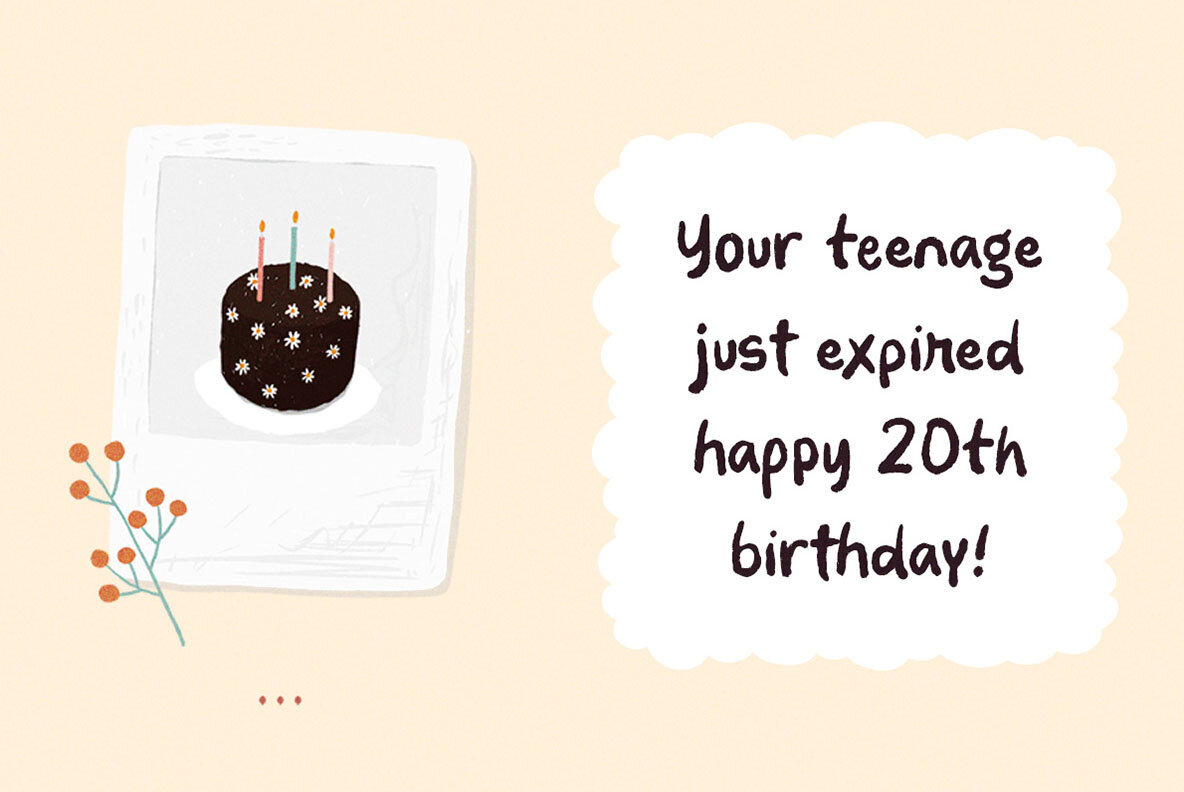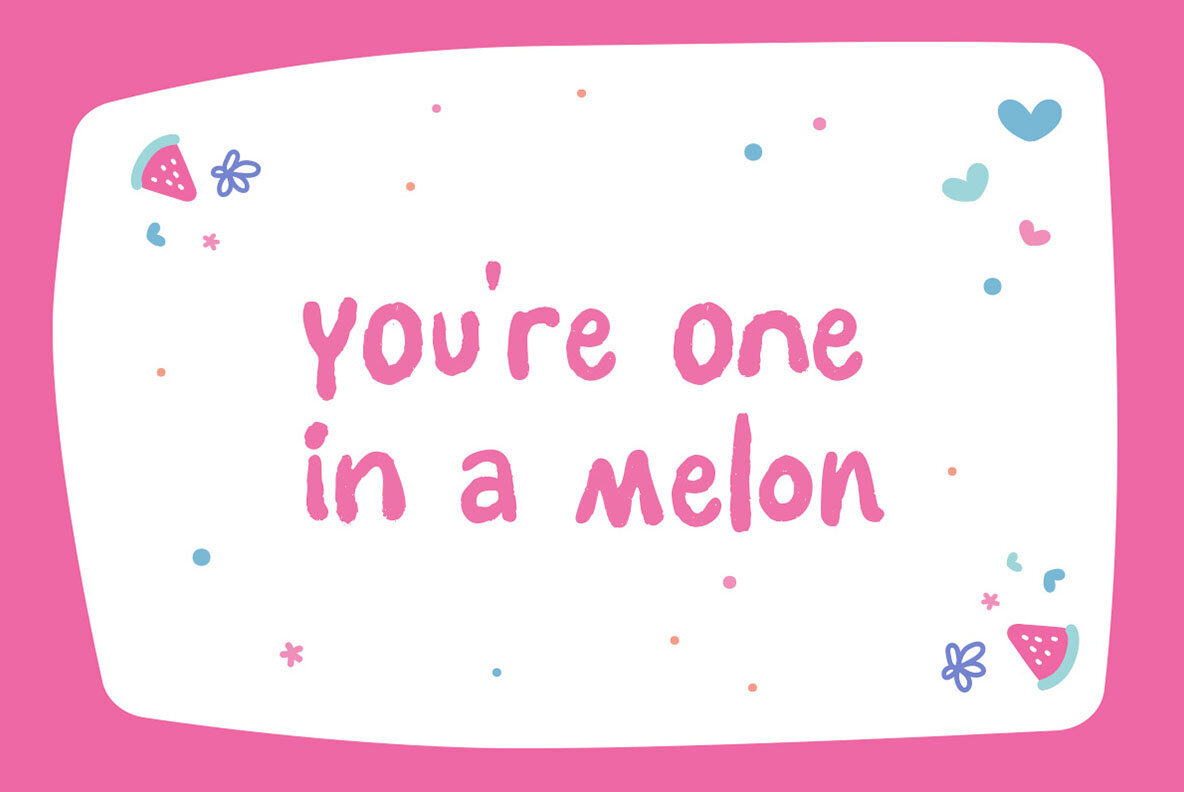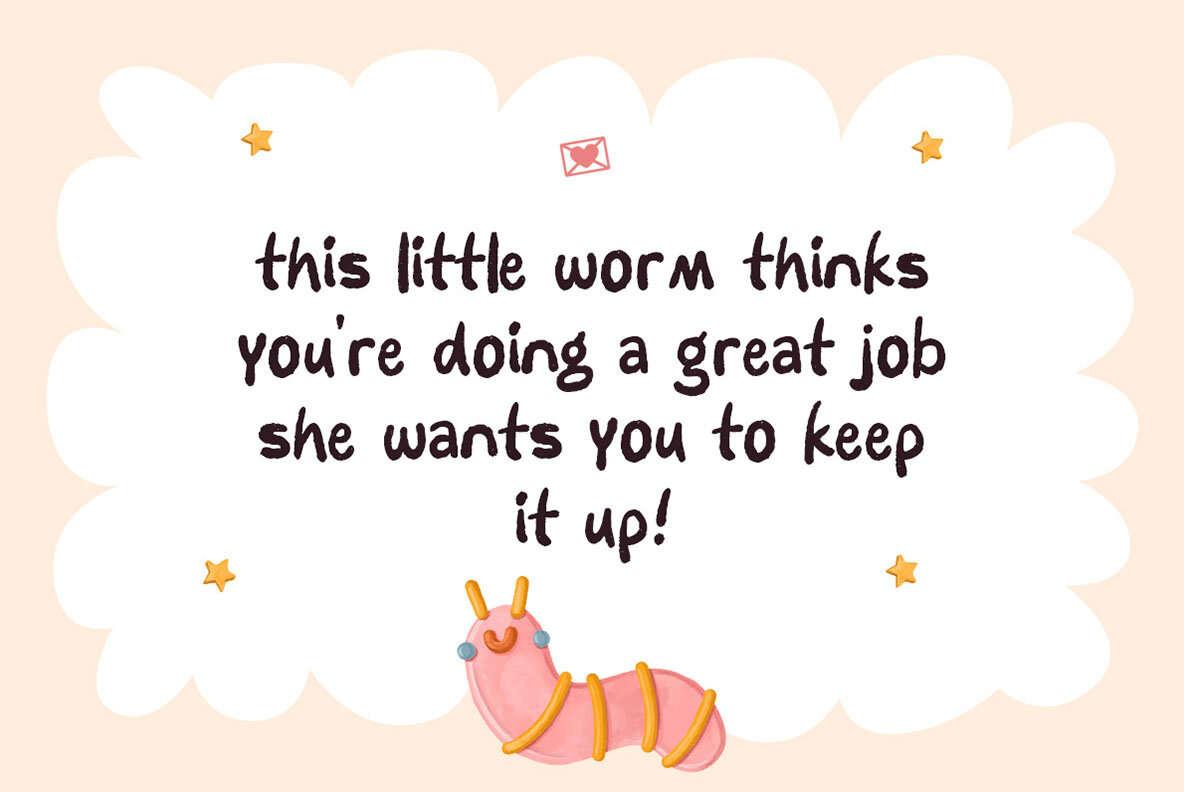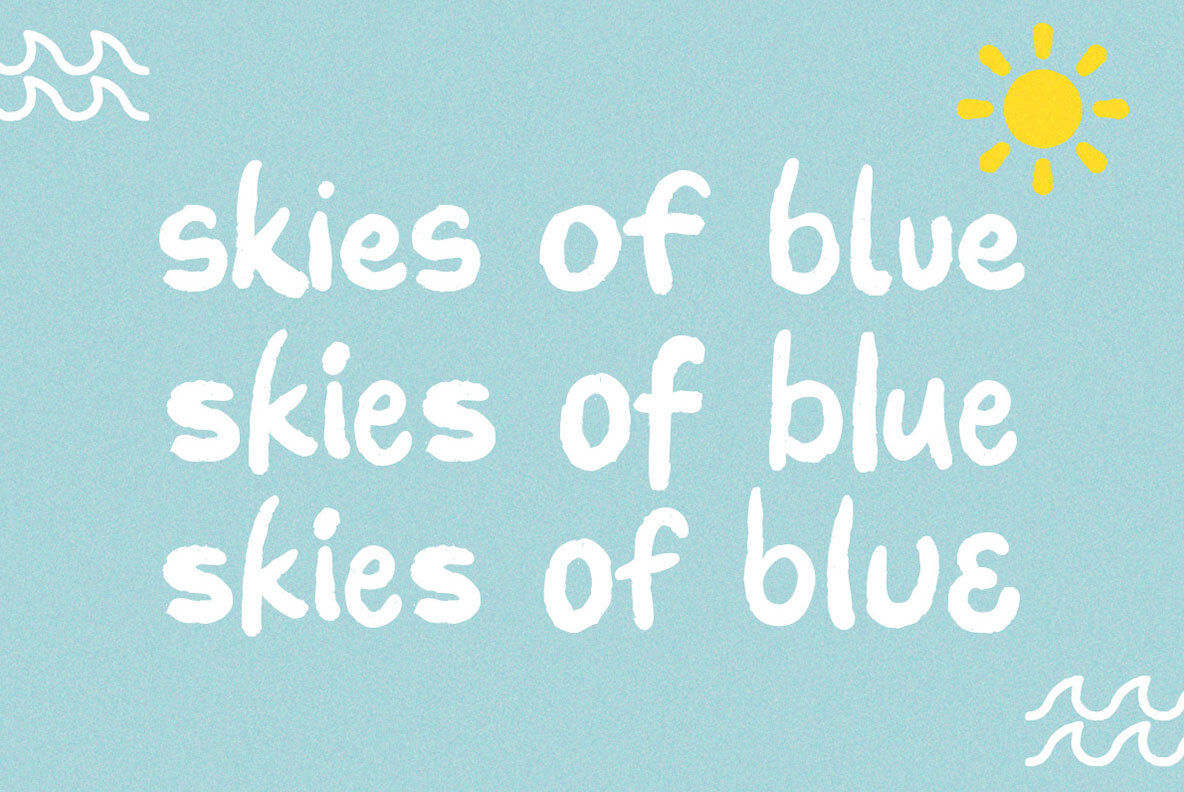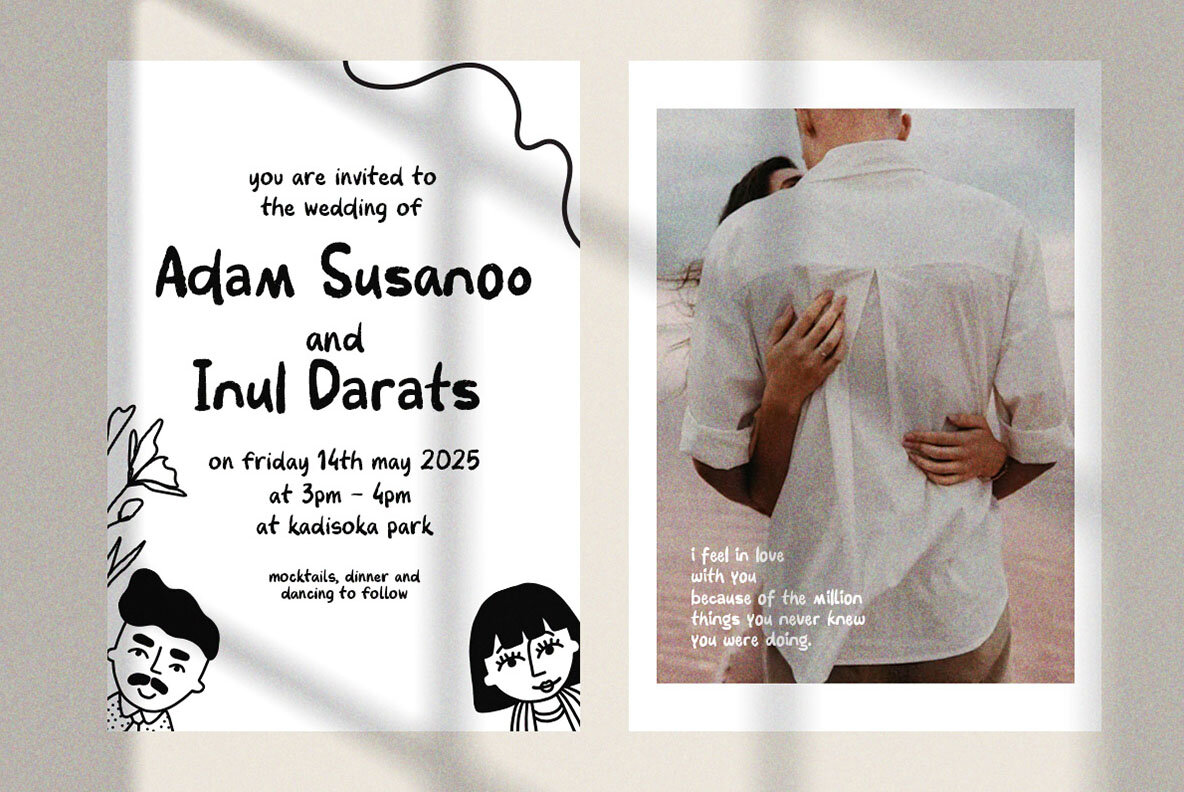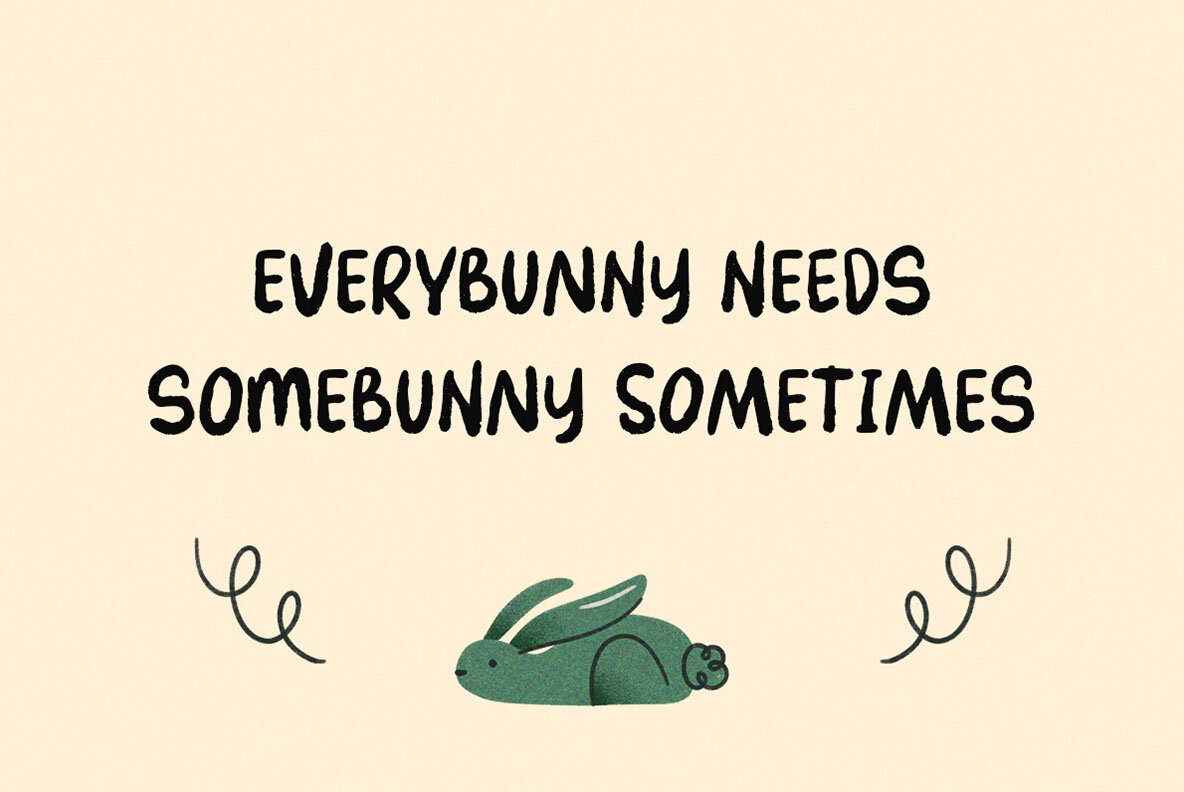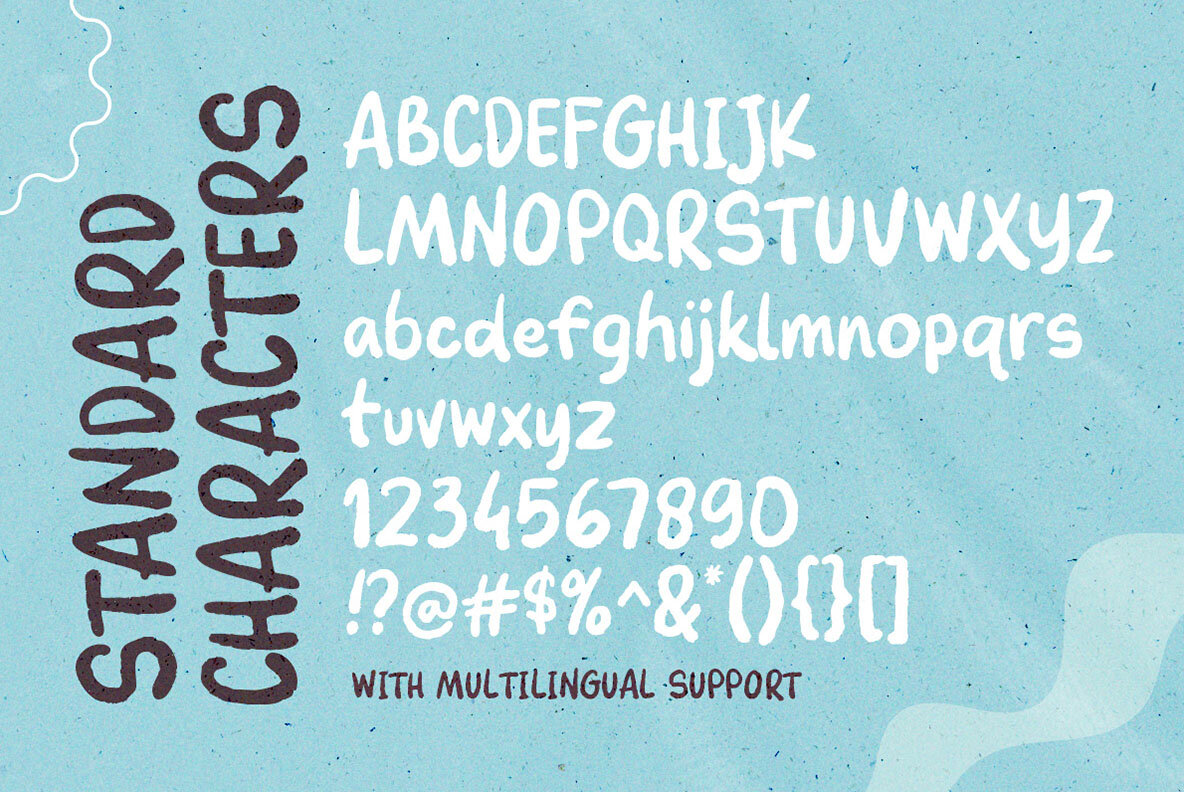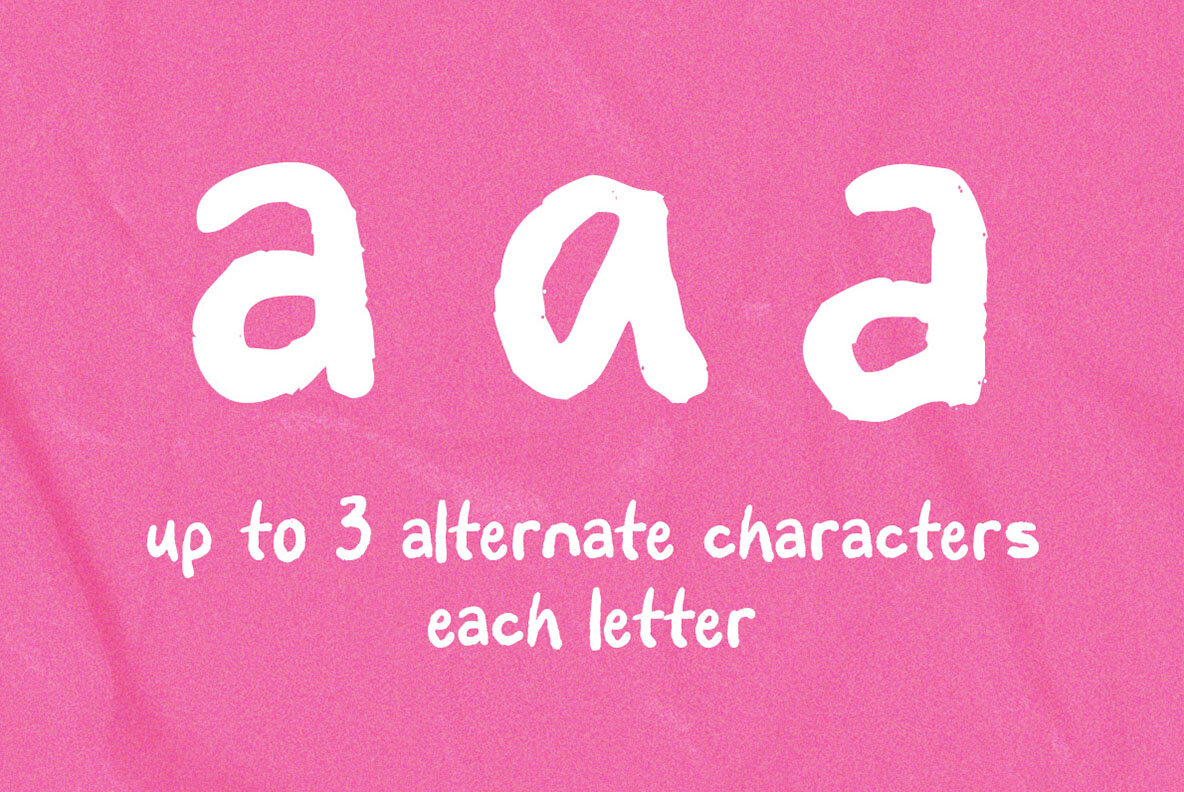
Messy Thinking
Messy Thinking is a casual handwriting font designed to replicate the natural flow of penmanship. Ideal for logos, invitations, labels, and more, its authentic look brings a personal touch to any project. The font's dynamic style suits various applications including magazines, books, greeting and wedding cards, packaging, fashion, makeup, and stationery. It's also perfect for advertising purposes, giving your text an organic and approachable feel.
This versatile font includes uppercase and lowercase characters, numbers, punctuation, alternates, and ligatures. It supports multiple languages and is PUA encoded, ensuring broad compatibility with design software. For the best experience, we recommend using programs that support OpenType features and Glyph panels, such as Adobe Creative Suite and CorelDRAW, to fully explore its glyph variations.